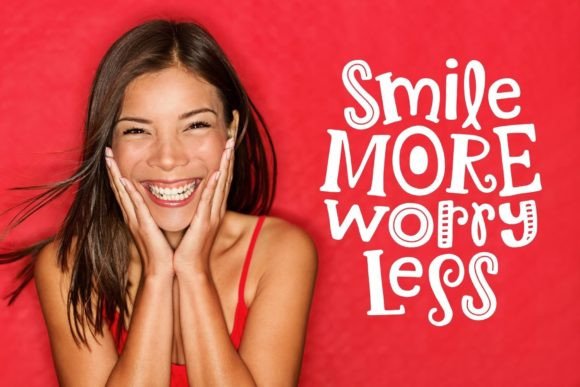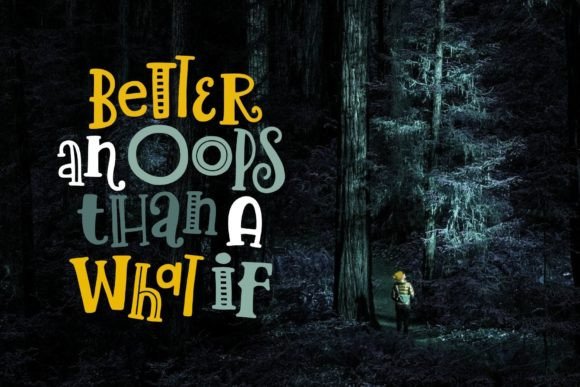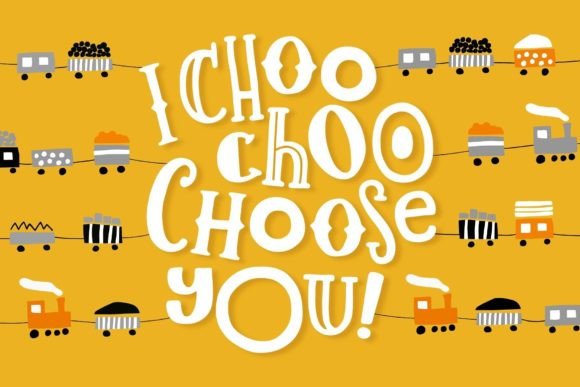
Lemon Slice Font
Lemon Slice is an adorably mismatched display font with three styles. Cursive, slab, inline, sans, serifs, stripes, bold, thin, curly – all present and accounted for. With 6 variations of each letter, you’ll have no problem coming up with a design that is unique and creative.